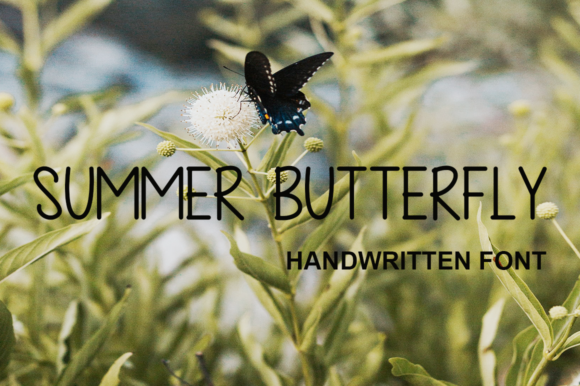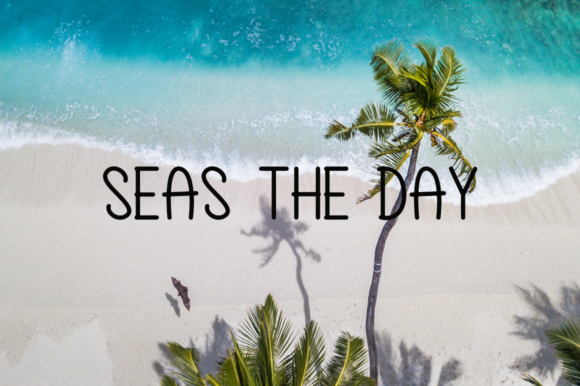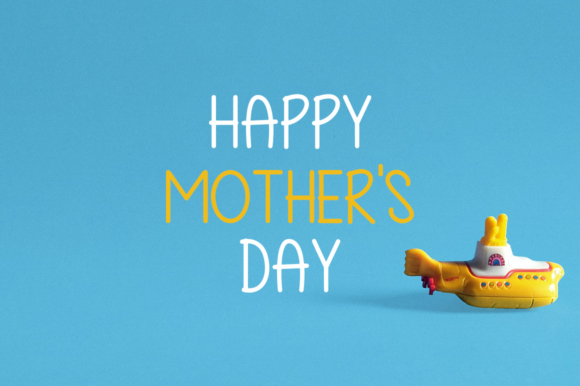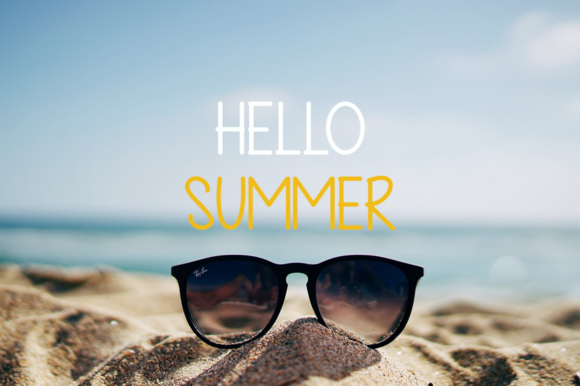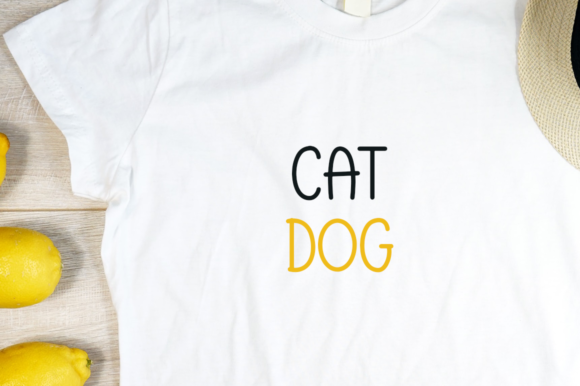
Summer Butterfly Font
About Summer Butterfly Font
Summer Butterfly is a thin and clean handwritten font. It can easily be matched to an incredibly large set of projects, so add it to your creative ideas and notice how it makes them stand out!